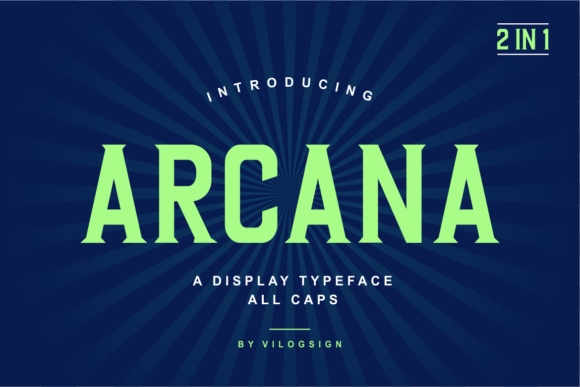
Introducing Arcana Font, the Bold and Striking Display Font That Commands Attention
In the realm of typography, Arcana Font emerges as a captivating display typeface, radiating strength and personality. This all-caps font is the brainchild of Vilogsign, a renowned font designer known for creating fonts that leave a lasting impression. Arcana Font is no exception, poised to elevate your designs to new heights.
Unleash the Power of Arcana Font
Arcana Font exudes a modern and captivating aesthetic, making it the perfect choice for a wide range of design projects. Its bold strokes and sharp angles lend a sense of authority and sophistication to your creations. Whether you're designing branding materials, t-shirts, magazine layouts, fashion-forward designs, or eye-catching quotes, Arcana Font delivers a standout look that commands attention.
Beyond its aesthetic appeal, Arcana Font is also a versatile performer, adapting seamlessly to various design styles. Its strong presence makes it ideal for logos and packaging design, where it can create a lasting impact on your audience. And with its clean and legible letterforms, Arcana Font excels in body text applications, ensuring your message is conveyed with clarity and impact.
Arcana Font: Your Design Arsenal's Secret Weapon
If you seek a font that exudes strength, modernity, and versatility, Arcana Font is your ultimate choice. Its bold and captivating design will transform your creative projects, leaving an indelible mark on your audience.
Embrace Arcana Font today and unlock a world of design possibilities. Let its bold strokes and sharp angles elevate your designs to new heights, captivating your audience with every stroke.